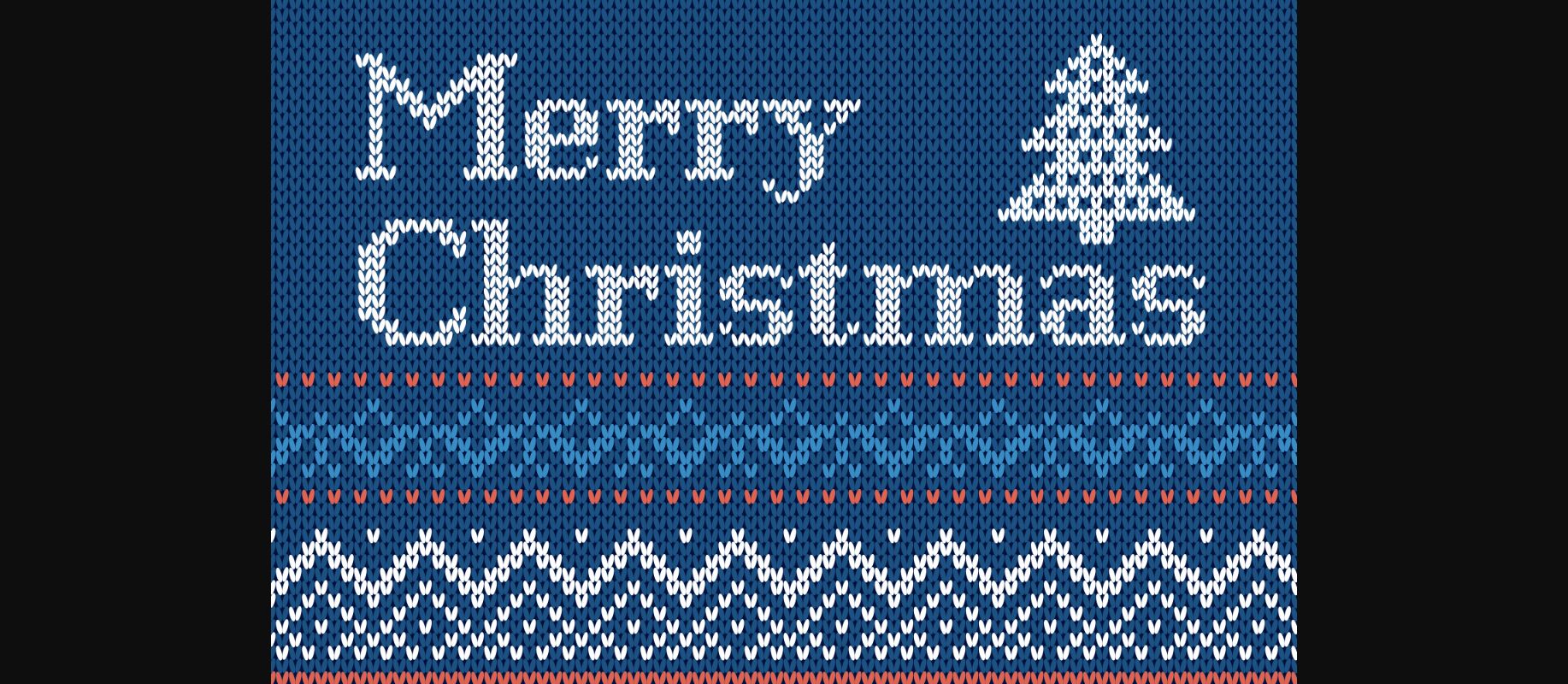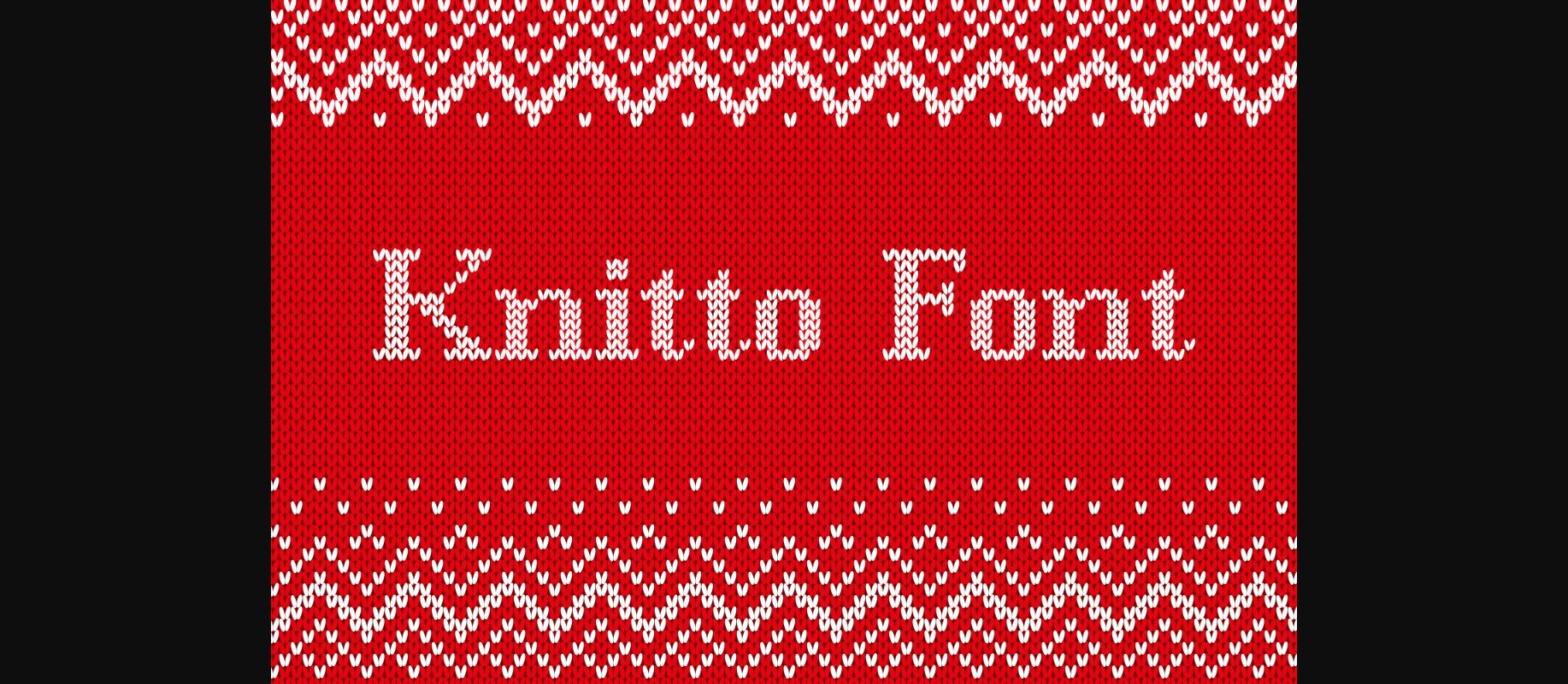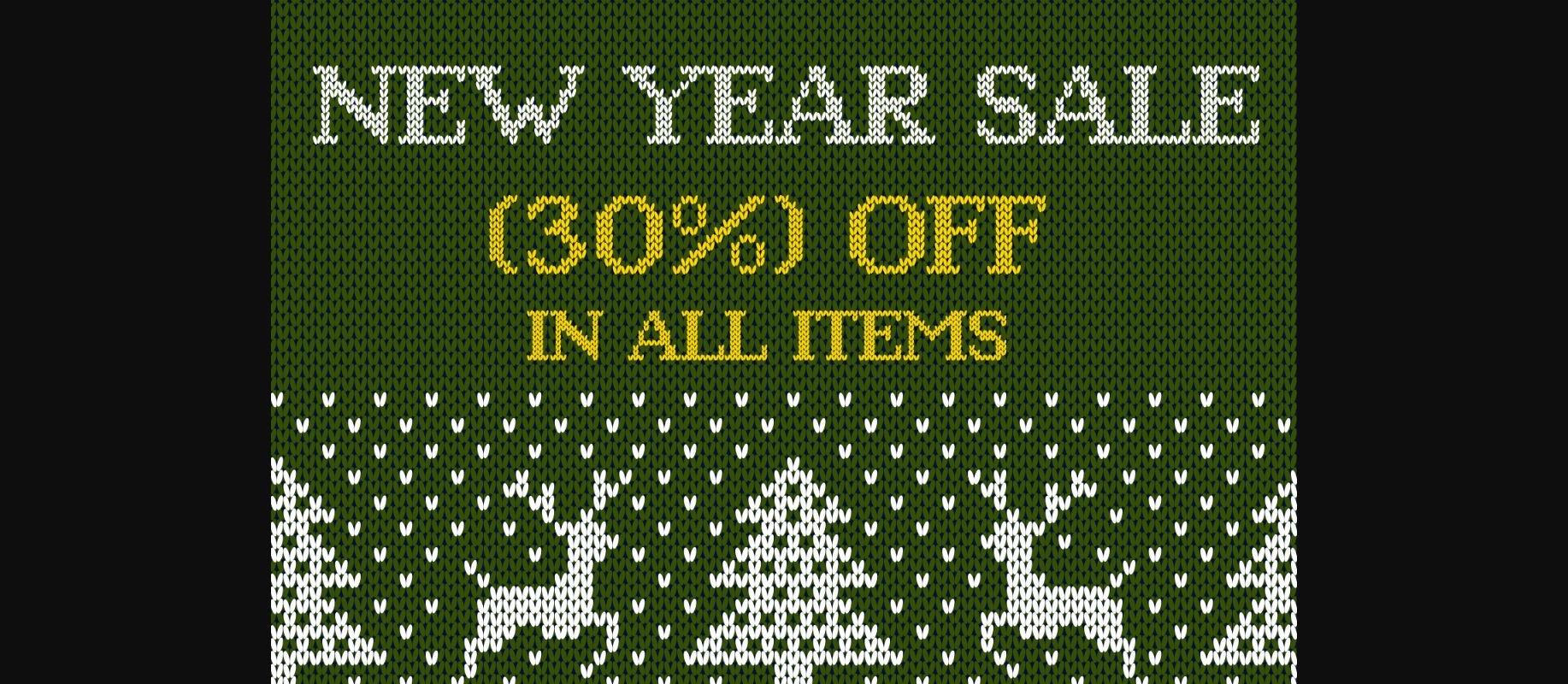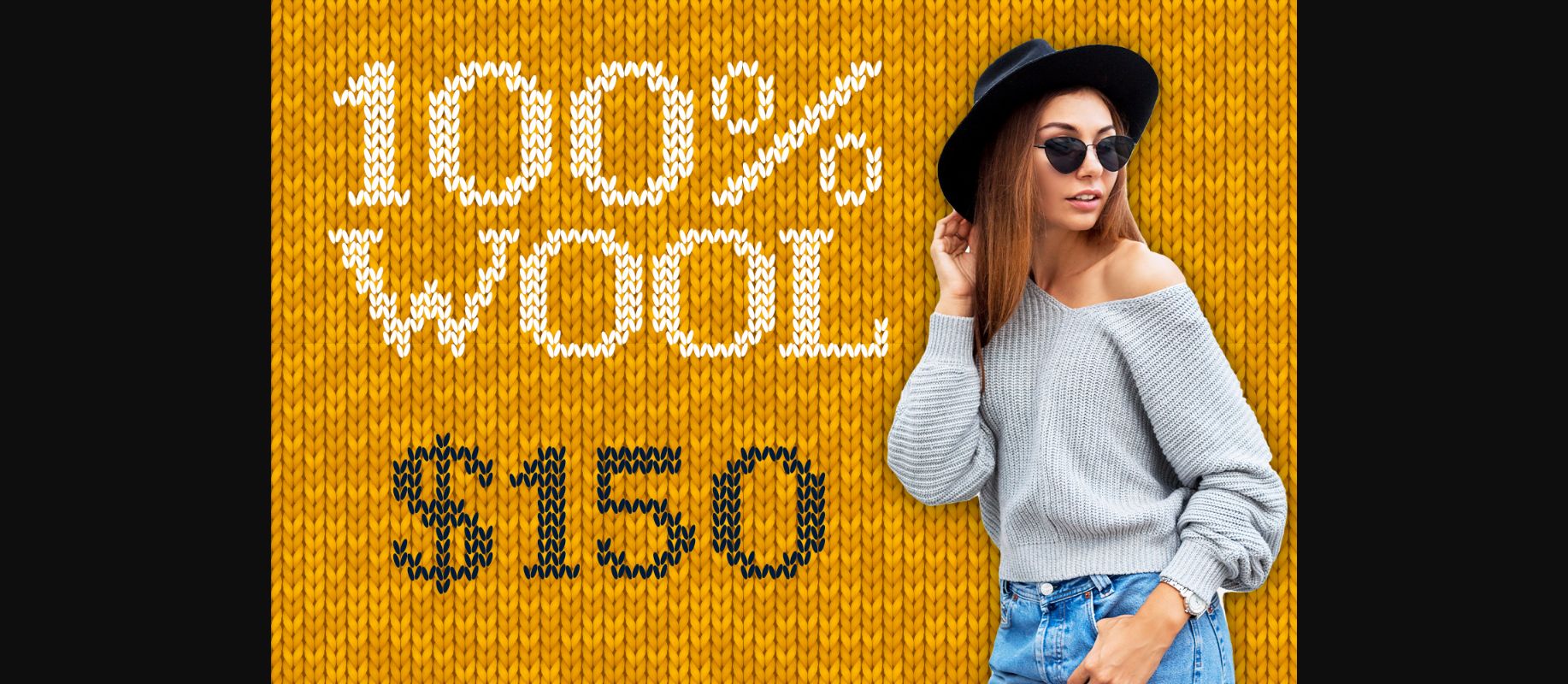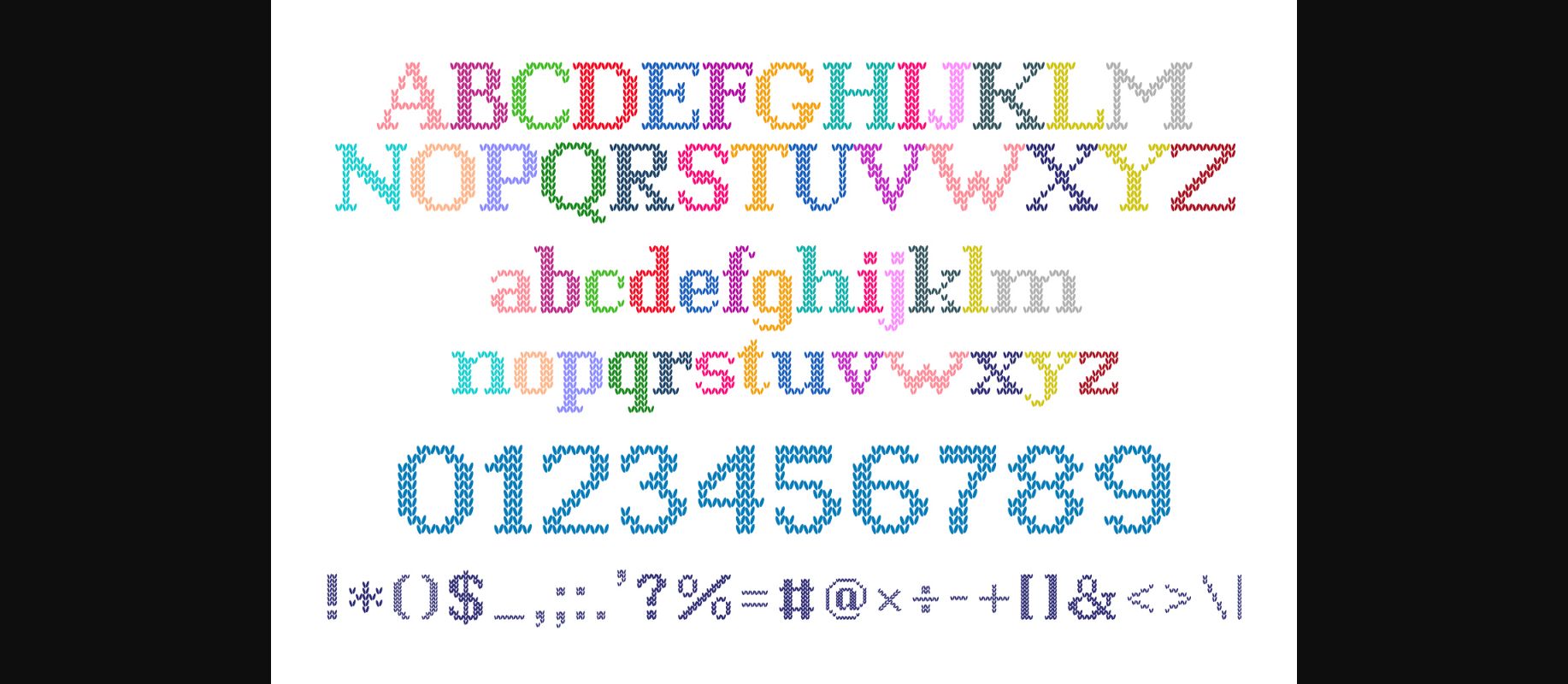
Knitto Font
About Knitto Font
Knitto is a friendly decorative font which embodies fun, quirkiness and authenticity. This enchanting font will turn any creative idea into a true standout.